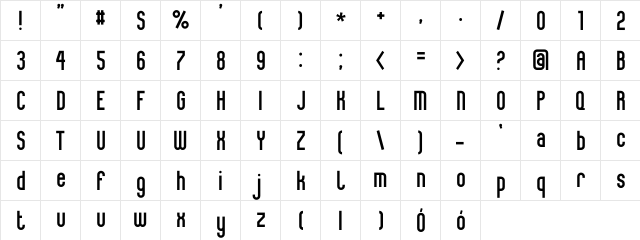
Ulisson Regular Font Preview
Ulisson Regular
Design Context for Ulisson Typeface
Ulisson takes a measured approach to typography — its balanced proportions and neutral character make it a reliable workhorse for both digital and print work.